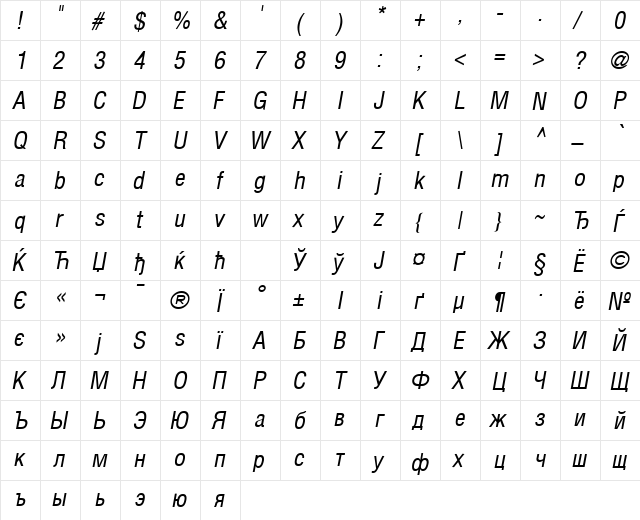
AGLettericaCondensed Oblique Font Preview
Design Context for AGLettericaCondensed Typeface
AGLettericaCondensed takes a measured approach to typography — its balanced proportions and neutral character make it a reliable workhorse for both digital and print work. The dynamic lean of this cut emphasises speed and emphasis in any layout. The condensed width makes it efficient for tight spaces without sacrificing legibility.
Pro Tip: Use AGLettericaCondensed for emphasis, pull quotes, and subheadings where its slanted energy can add rhythm to the layout.